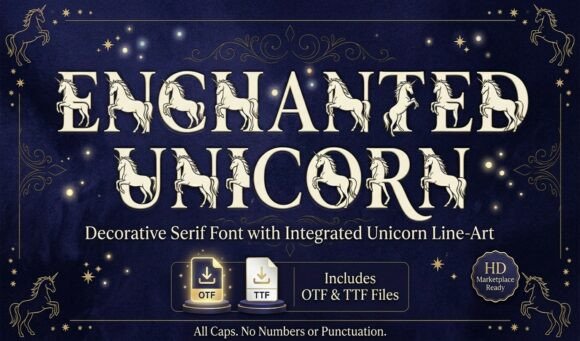
Introducing the Enchanted Unicorn Font: A Magical Typeface for Designers and Crafters
Are you a designer or crafter looking to add a touch of magic to your projects? Look no further than the Enchanted Unicorn Font, a beautifully crafted, highly decorative typeface that combines elegant serif typography with a majestic, standing unicorn silhouette integrated into every single letter. This stunning font is perfect for anyone looking to create a fairy tale aesthetic in their work.
A Unique and Eye-Catching Design
The Enchanted Unicorn Font is a true showstopper, with its intricate design and whimsical charm. Each letter is carefully crafted to incorporate a unicorn silhouette, creating a truly unique and eye-catching effect. Whether you’re designing personalized kids’ apparel, enchanting nursery room wall art, or magical birthday party invitations, this font is sure to make your project stand out.
The Enchanted Unicorn Font is incredibly versatile, making it perfect for a wide range of projects. Some ideas for using this font include:
- Personalized kids’ apparel, such as t-shirts and onesies
- Enchanting nursery room wall art and decals
- Magical birthday party invitations and decorations
- Custom tote bags and tumblers
- Sublimation designs for mugs, water bottles, and more
- Beautiful single-letter monograms for personalized gifts
Why Choose the Enchanted Unicorn Font?
So why choose the Enchanted Unicorn Font for your next project? Here are just a few reasons:
- Unique and eye-catching design: The Enchanted Unicorn Font is sure to grab attention and make your project stand out.
- Highly versatile: This font can be used for a wide range of projects, from apparel to home decor to party invitations.
- Elegant and whimsical: The combination of elegant serif typography and whimsical unicorn silhouettes creates a truly magical effect.
- Perfect for crafters and designers: Whether you’re a professional designer or a crafter looking to add a special touch to your projects, the Enchanted Unicorn Font is a great choice.
Tips for Using the Enchanted Unicorn Font
Here are a few tips for getting the most out of the Enchanted Unicorn Font:
- Experiment with different colors: The Enchanted Unicorn Font looks great in a variety of colors, from pastel pinks and blues to bold brights.
- Pair with complementary fonts: Try pairing the Enchanted Unicorn Font with a simpler font to create a striking contrast.
- Use for headlines and titles: The Enchanted Unicorn Font is perfect for headlines and titles, where its eye-catching design can really shine.
Whether you’re a seasoned designer or a crafter just starting out, the Enchanted Unicorn Font is sure to inspire your creativity and help you create projects that are truly one-of-a-kind. So go ahead, get creative, and let the magic of the Enchanted Unicorn Font shine through in your work!